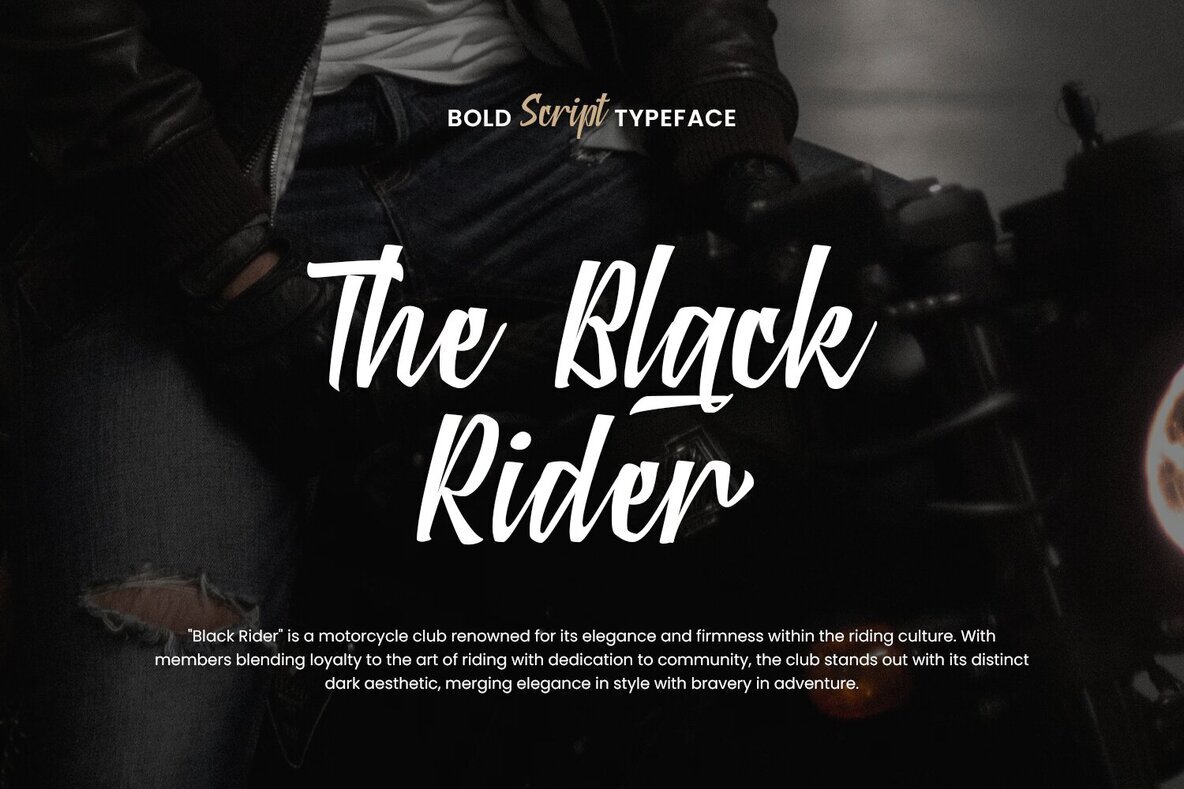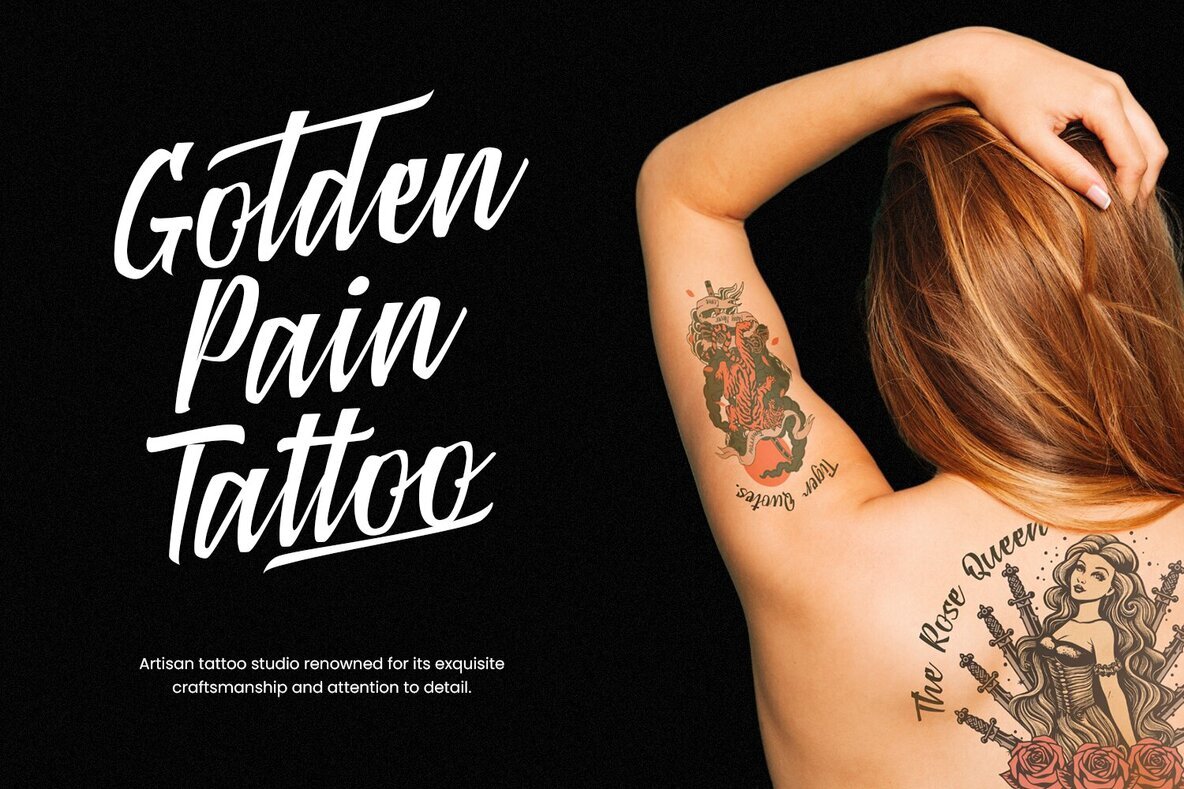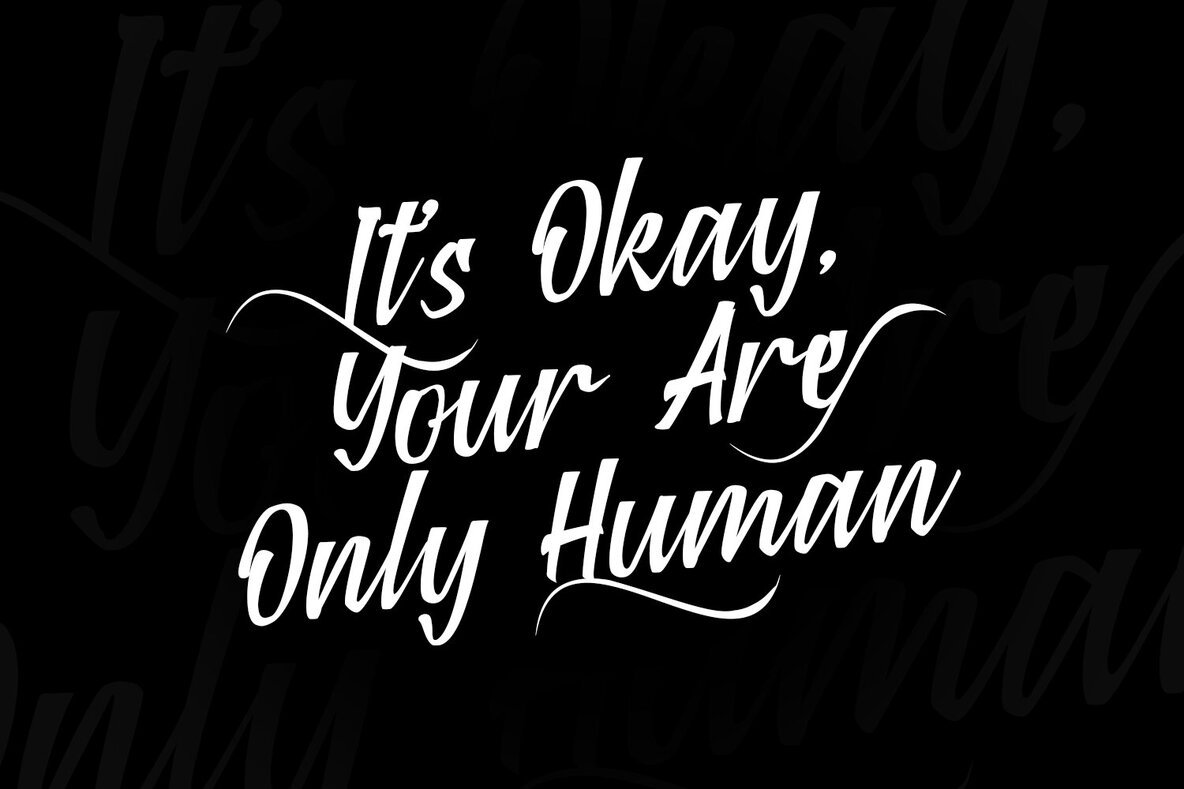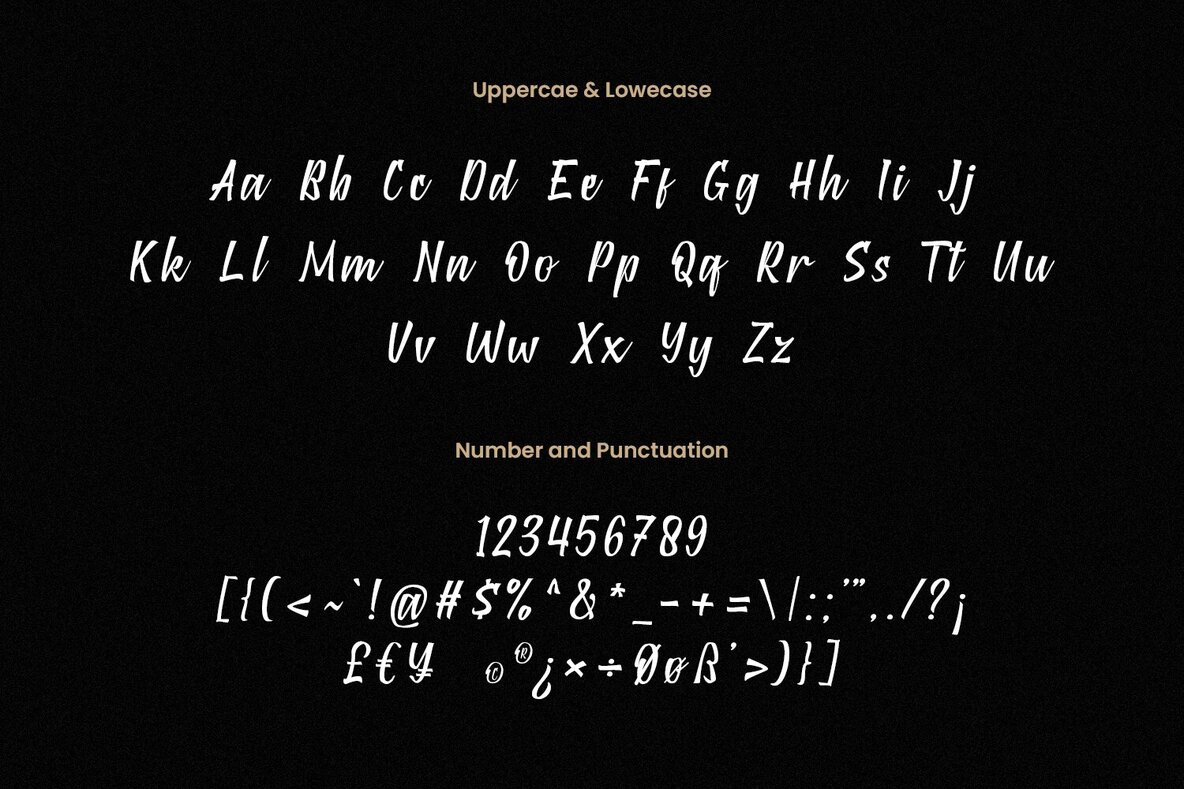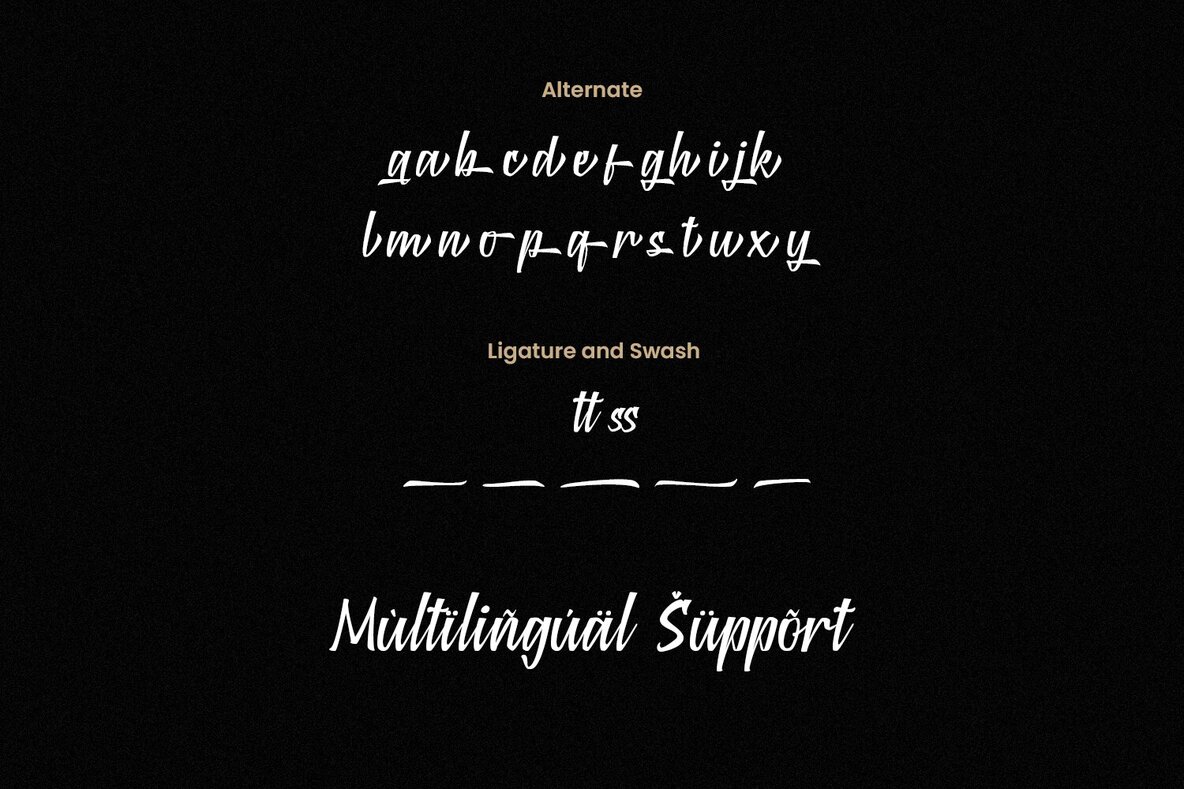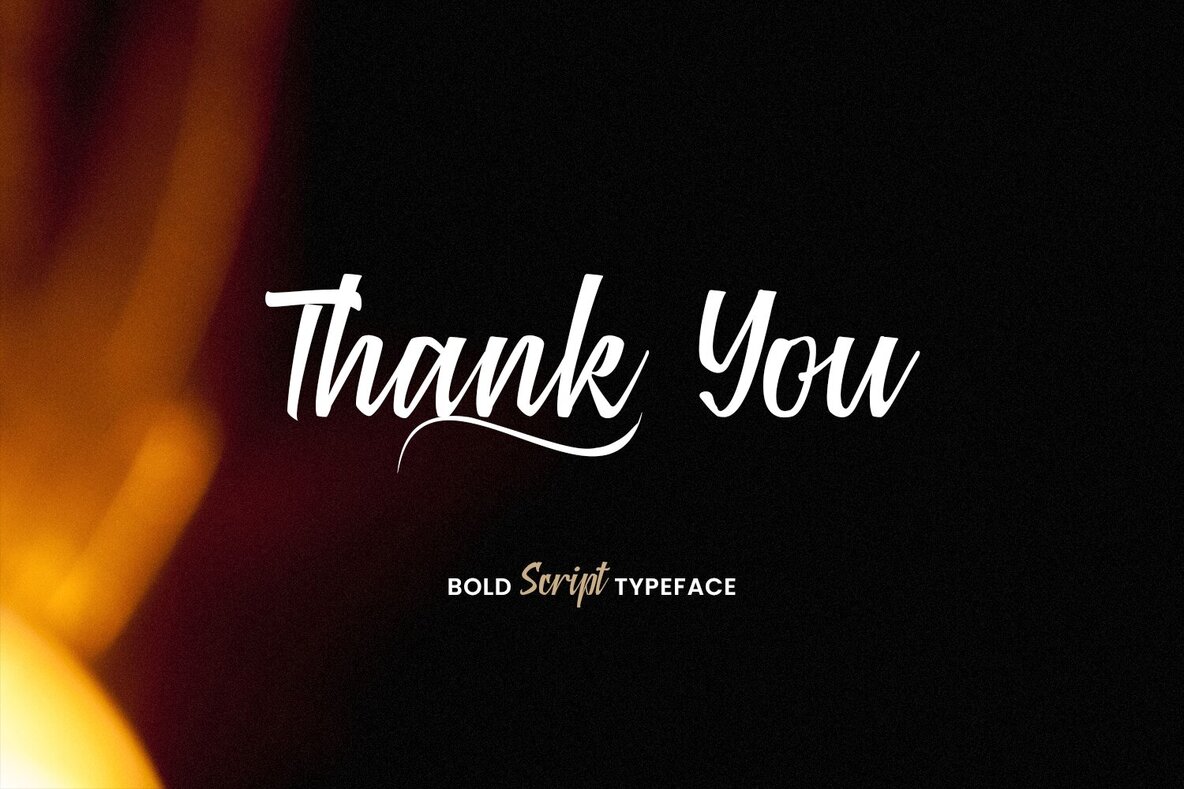
Mandaka Font
Mandaka Regular
Unveiling our newest gem, Mandaka Font, a homage to retro masculinity in style and substance. This font is a testament to boldness, confidence, and a distinctly assertive vibe. Crafted with precision, its script exudes power and authority, making it perfect for projects that demand a commanding aesthetic presence. Mandaka Font is not just a typeface; it's a statement. Whether gracing invitations, branding materials, headlines, posters, or any design endeavor, it leaves an indelible mark of strength and sophistication. Its versatility shines through, effortlessly adapting to various contexts while maintaining its bold character and masculine allure. Designed with meticulous attention to detail, Mandaka Font captures the essence of vintage masculinity while offering a contemporary edge. Its clean lines, balanced proportions, and unique flair set it apart, ensuring that your designs stand out with a touch of timeless charm. Elevate your creative projects with Mandaka Font and experience the transformative power of typography that resonates with authority, confidence, and undeniable style. It's more than just a font; it's a catalyst for captivating visual storytelling and leaving a lasting impression in every design venture.